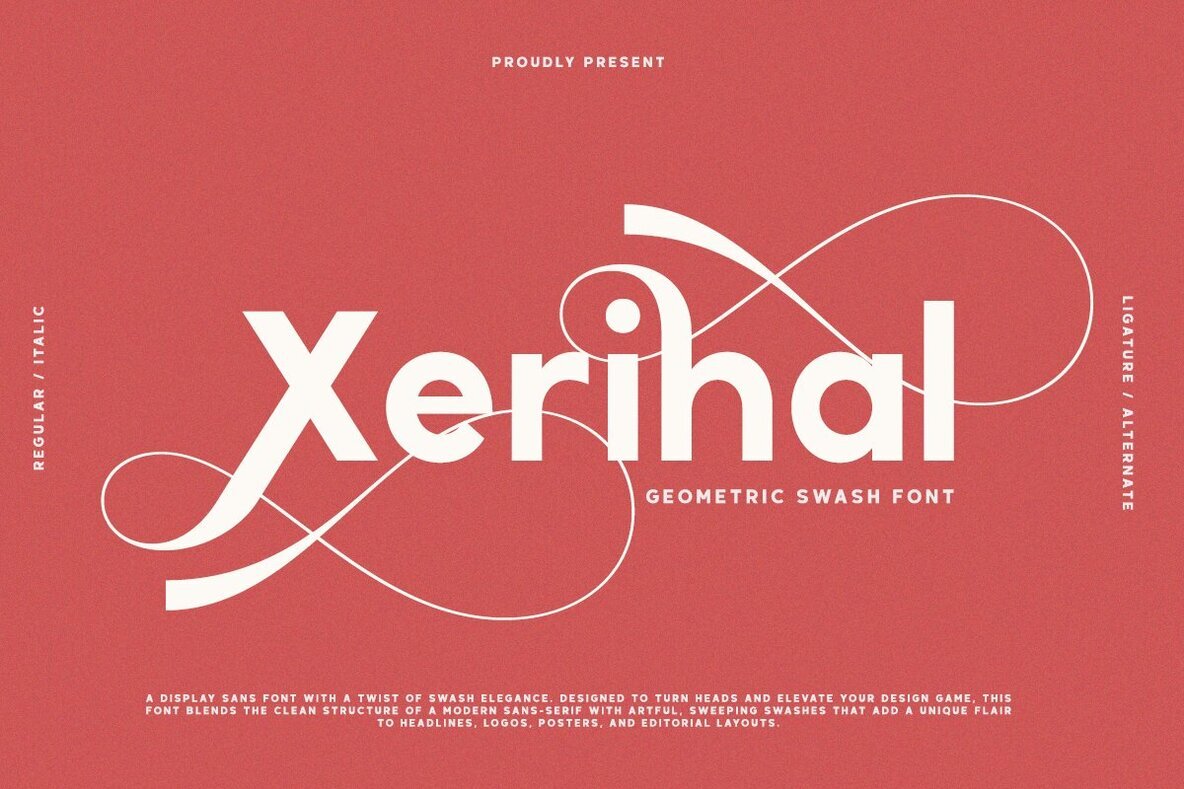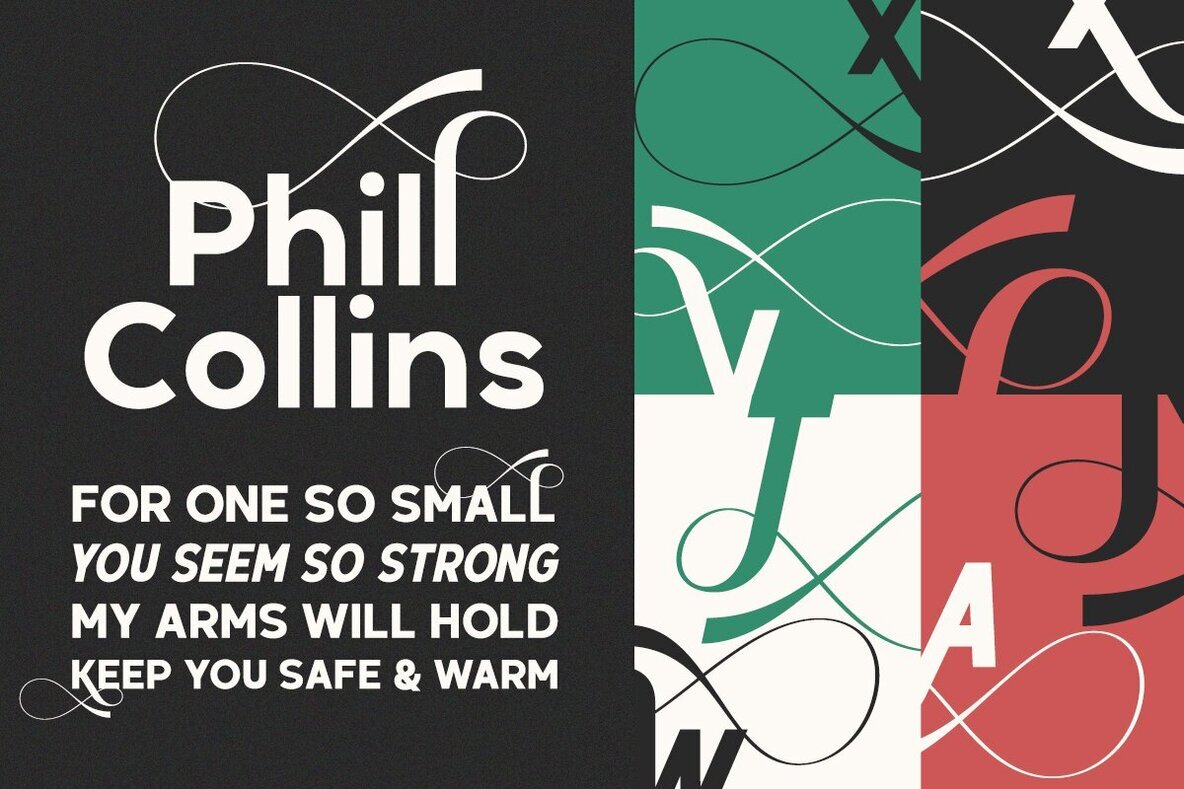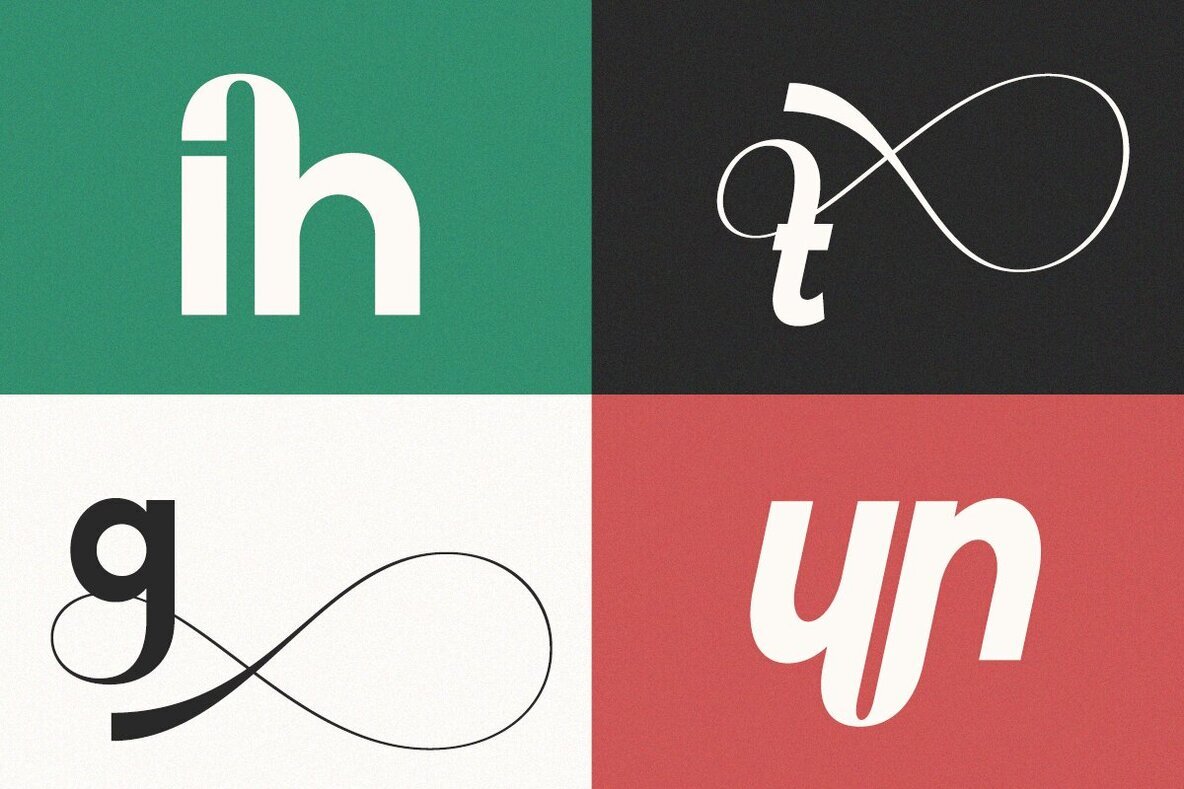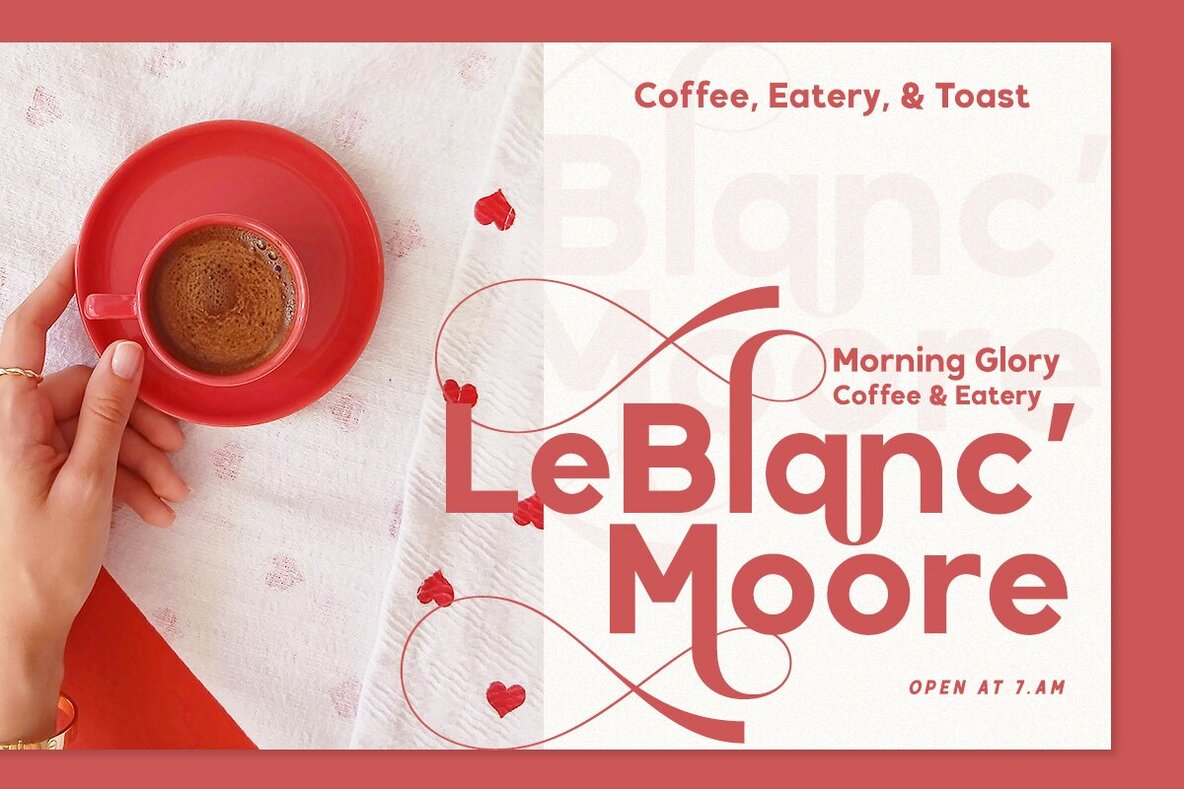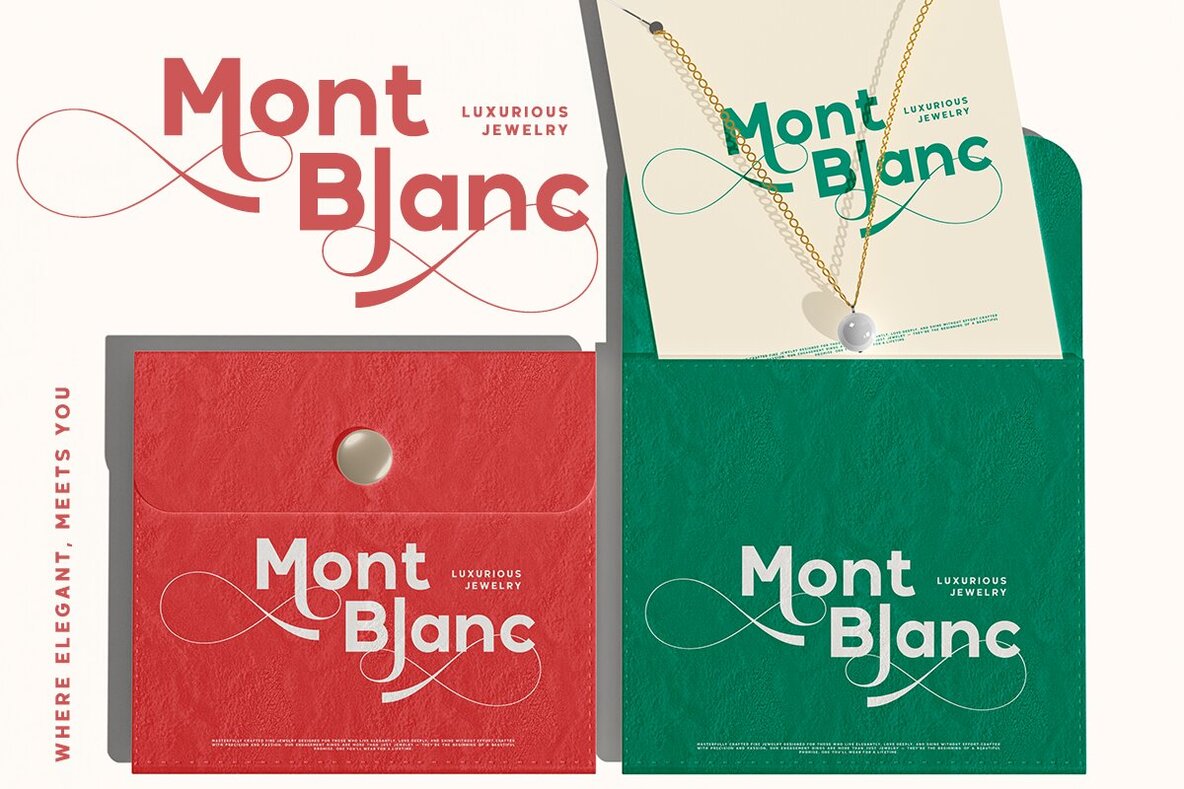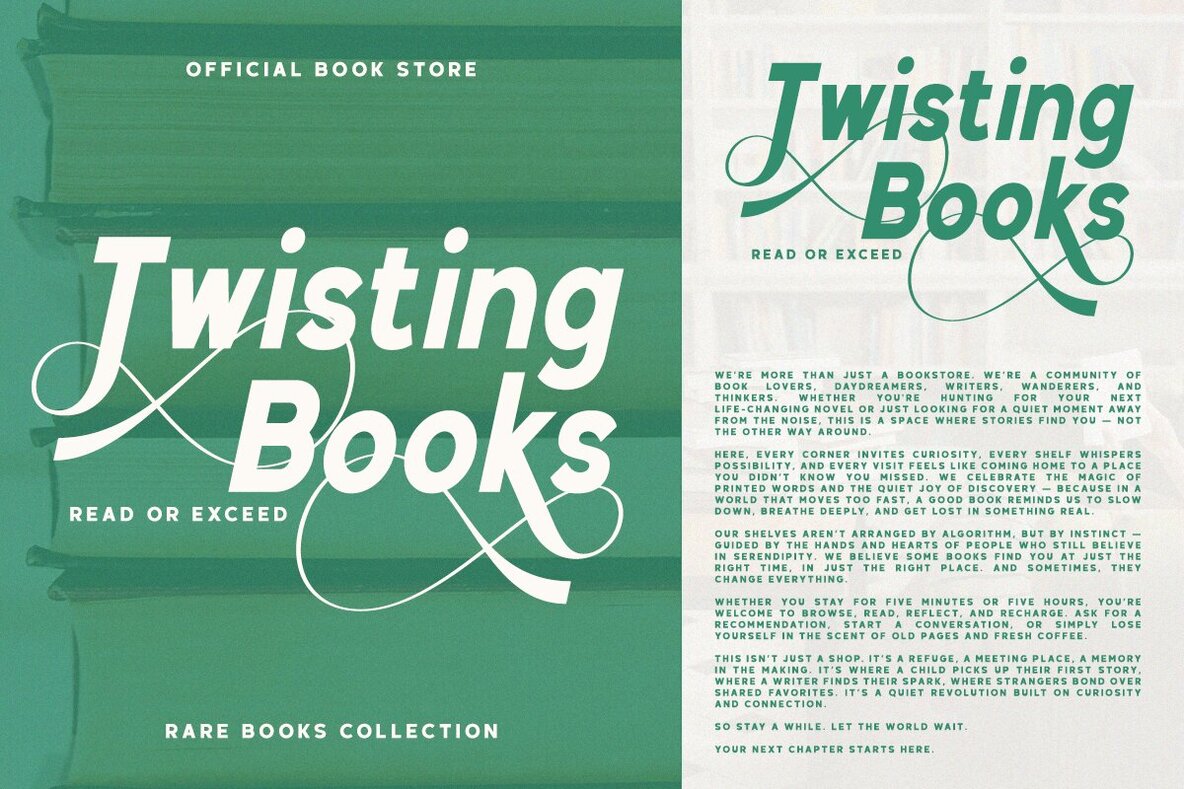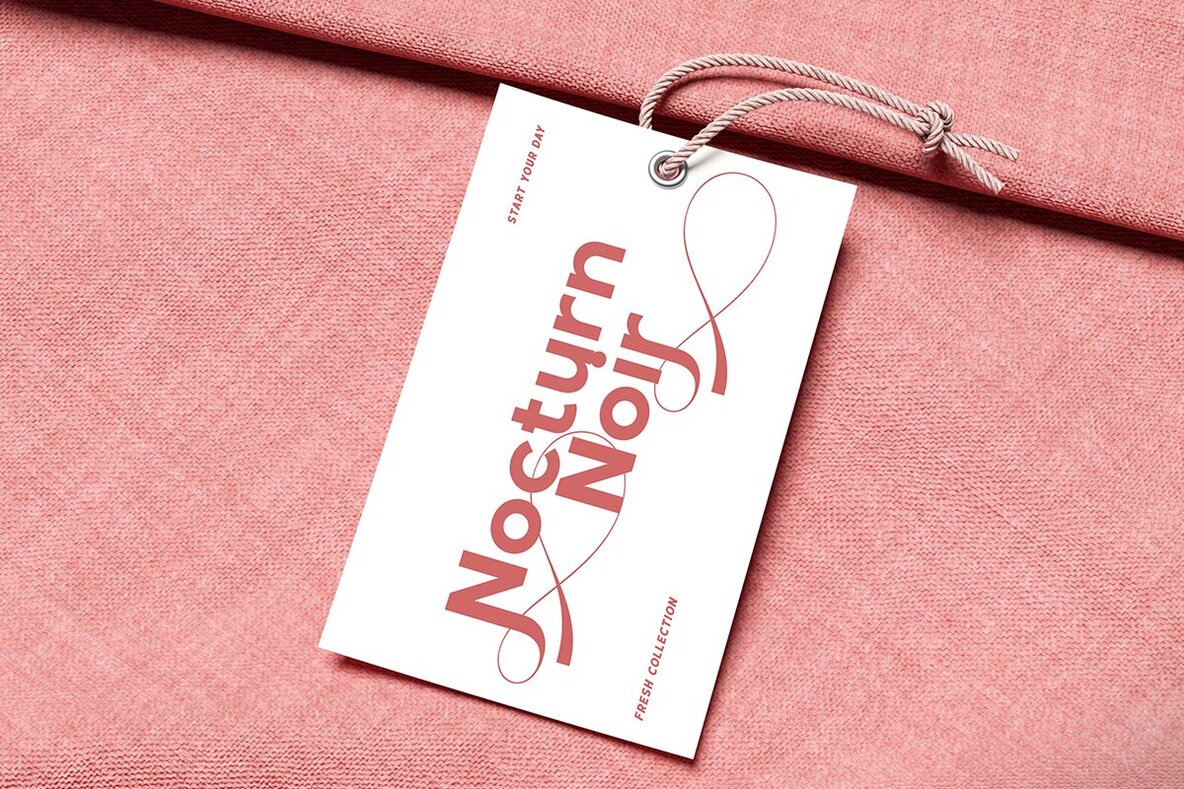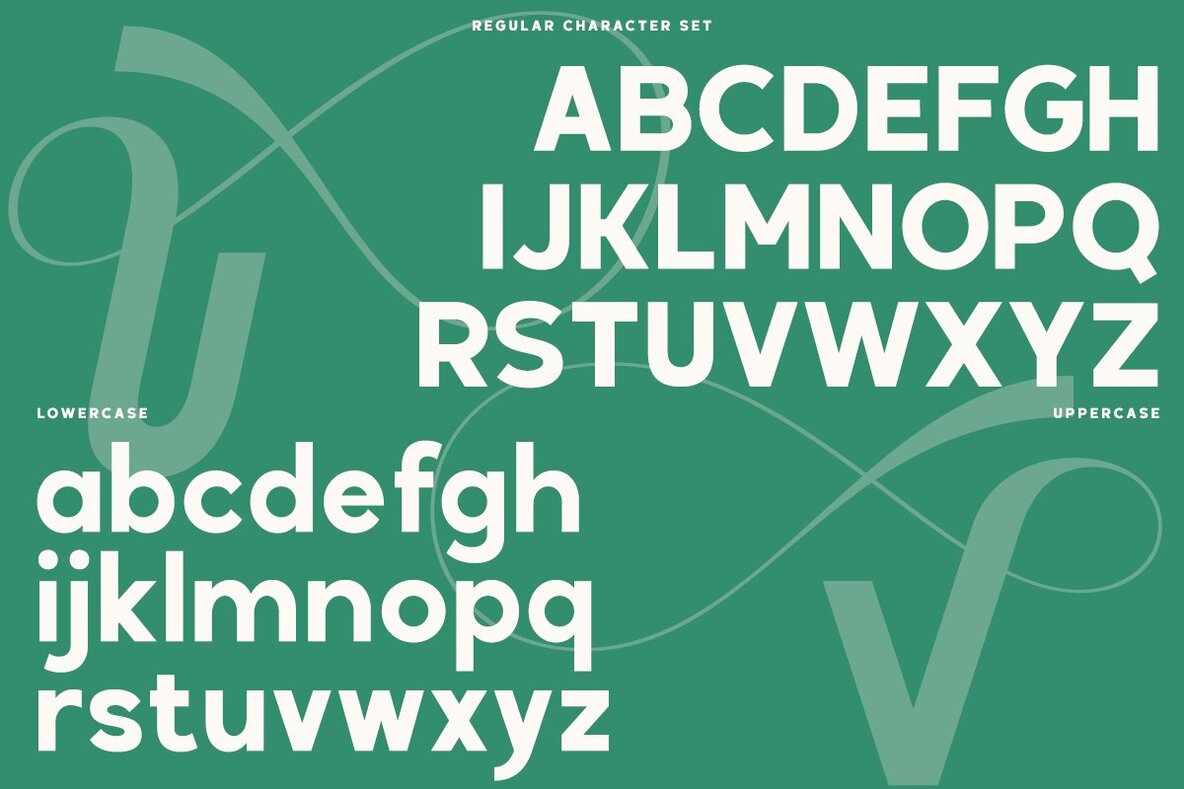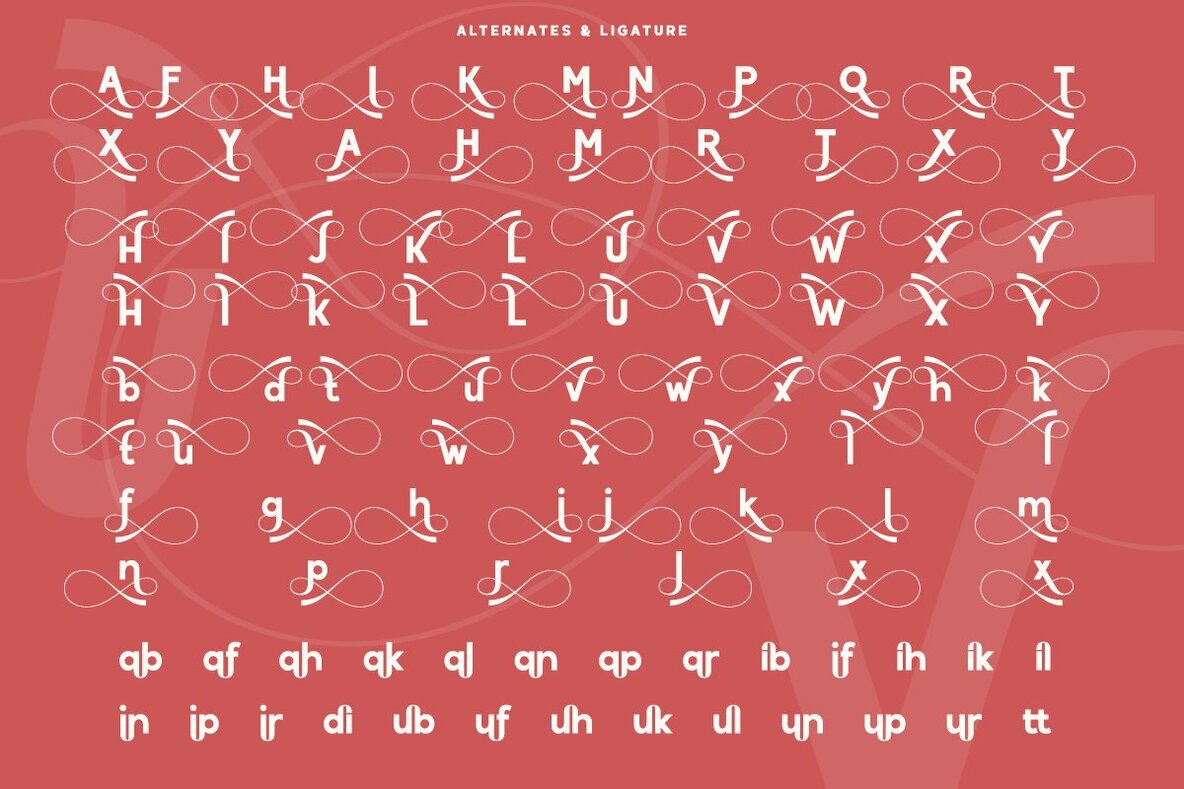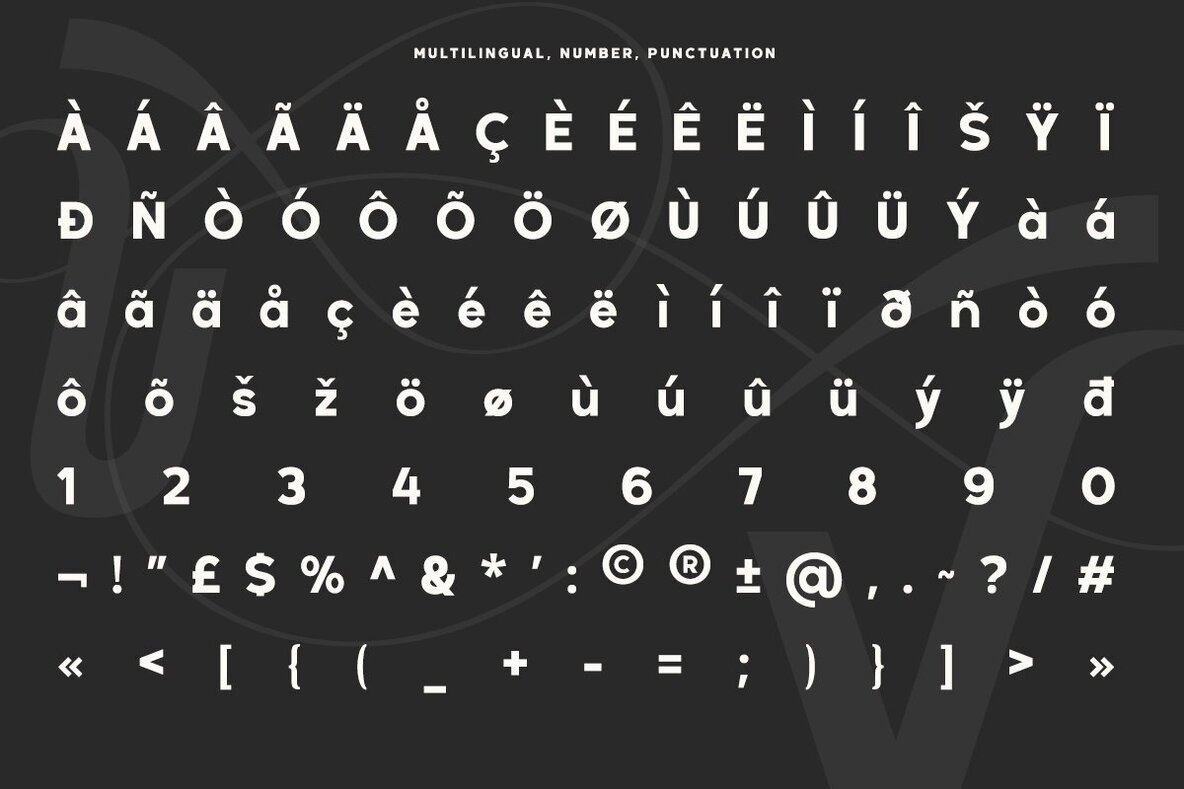
Xerihal Font
Xerihal is a geometric modern font defined by sophisticated swashes and creative alternates. Its clean lines and detailed curves introduce a sense of effortless elegance, making it a reliable choice for branding, editorial layouts, packaging, logo design, invitations, and luxury-focused projects. Every letter is balanced for a polished finish, lending a refined look without overpowering your design concept.Xerihal Geometric Swash Font
Versatile in both regular and italic styles, Xerihal adapts seamlessly across different uses. Its smart alternates and intricate ligatures offer designers the flexibility to adjust for unique typographic compositions. Rich swash ornamentation adds a dramatic, expressive touch, while multilingual support ensures global compatibility.Font Features